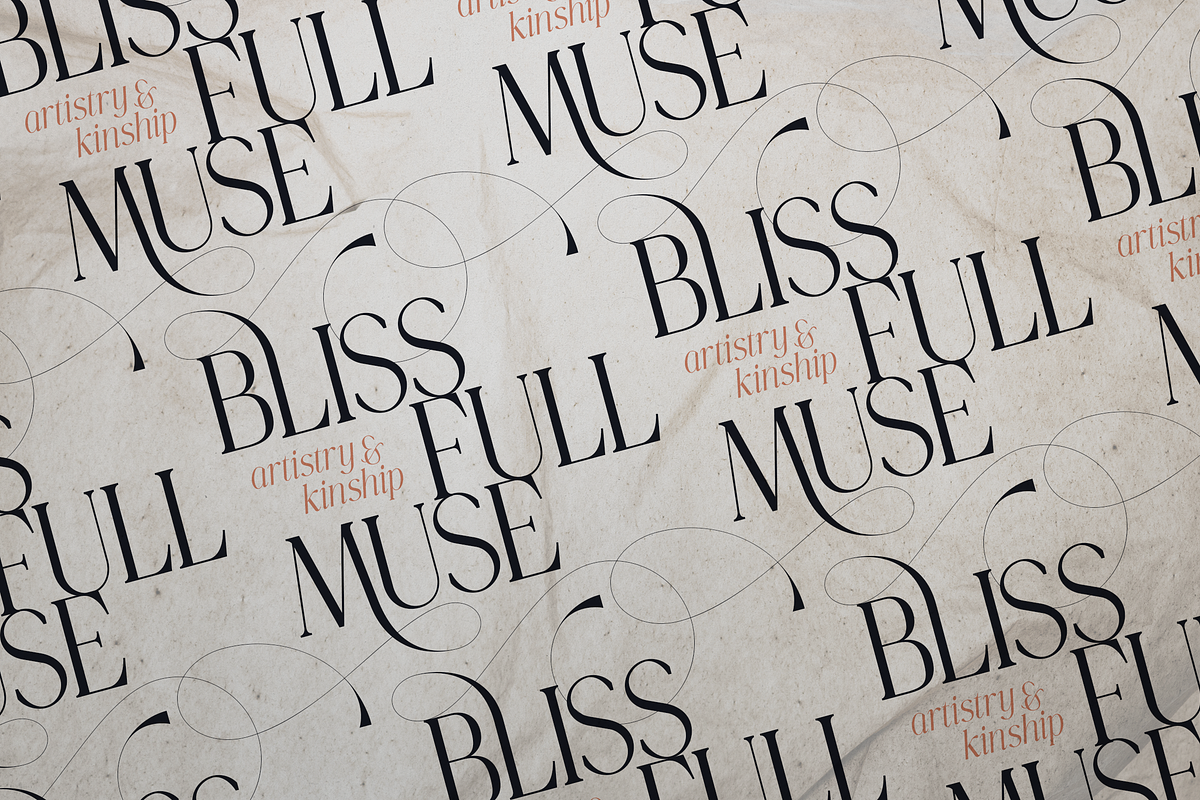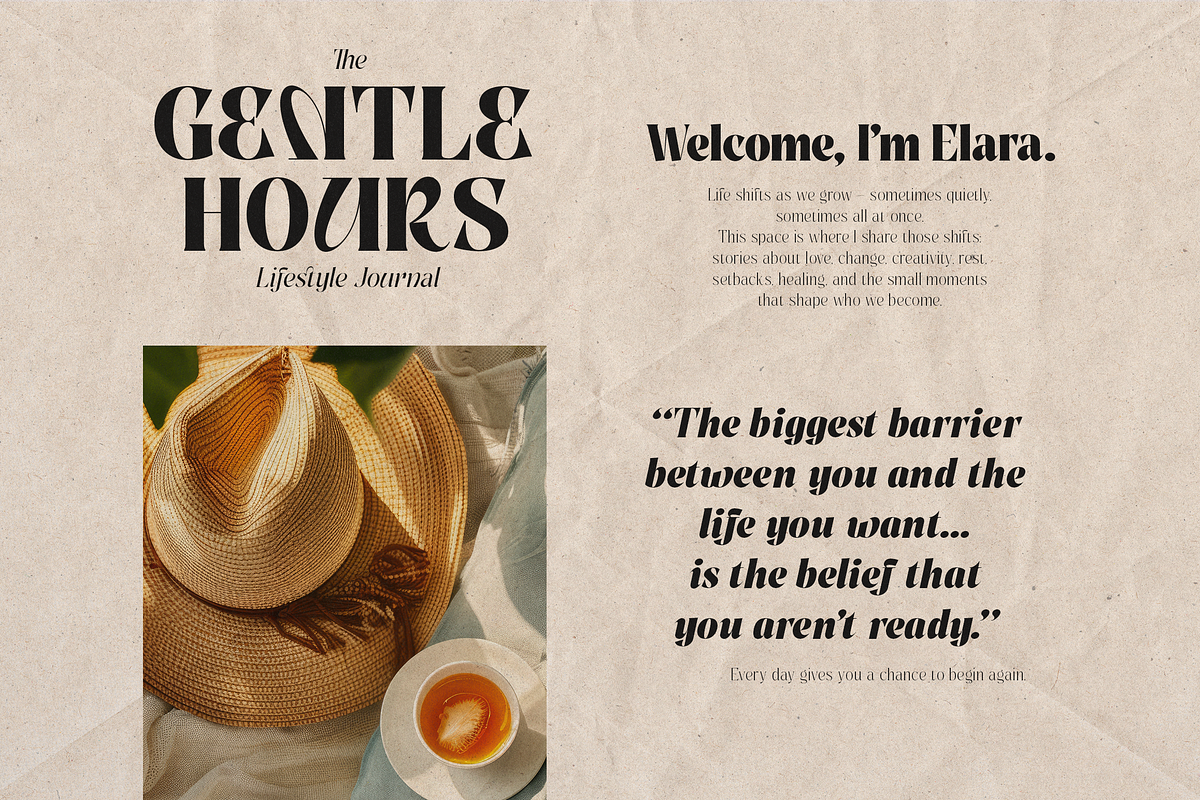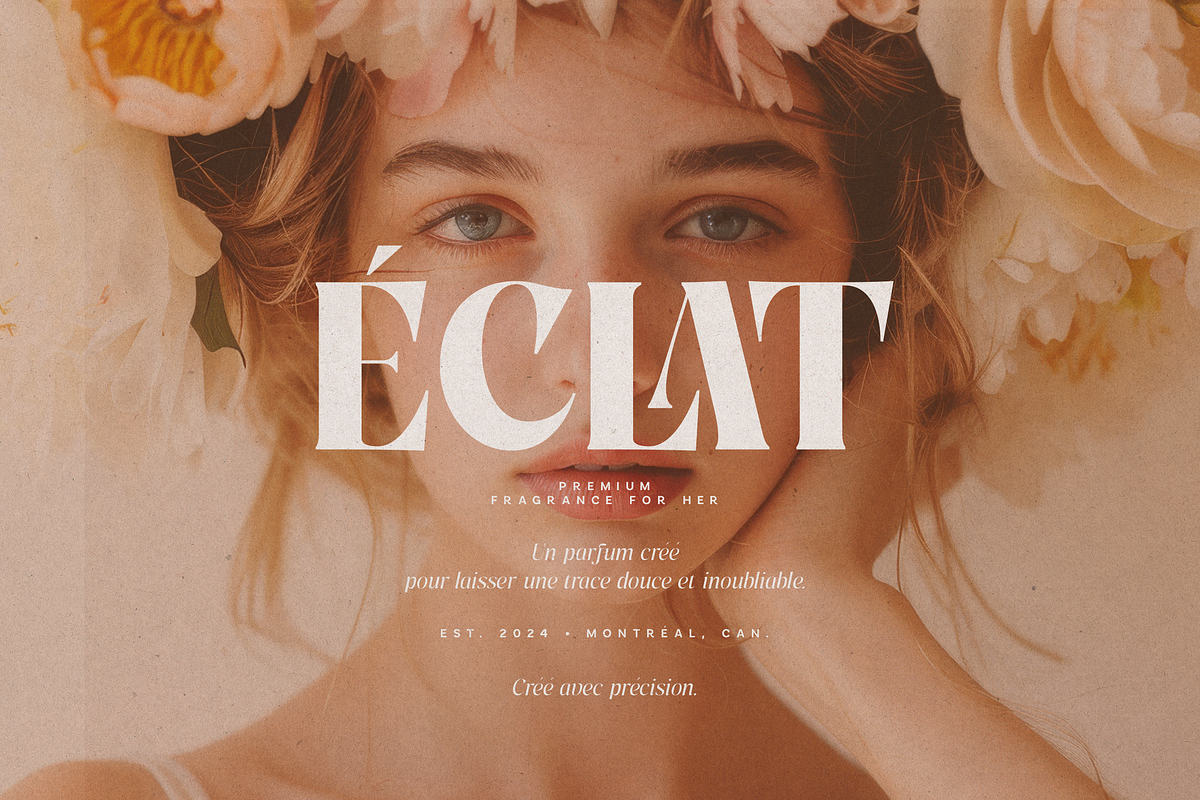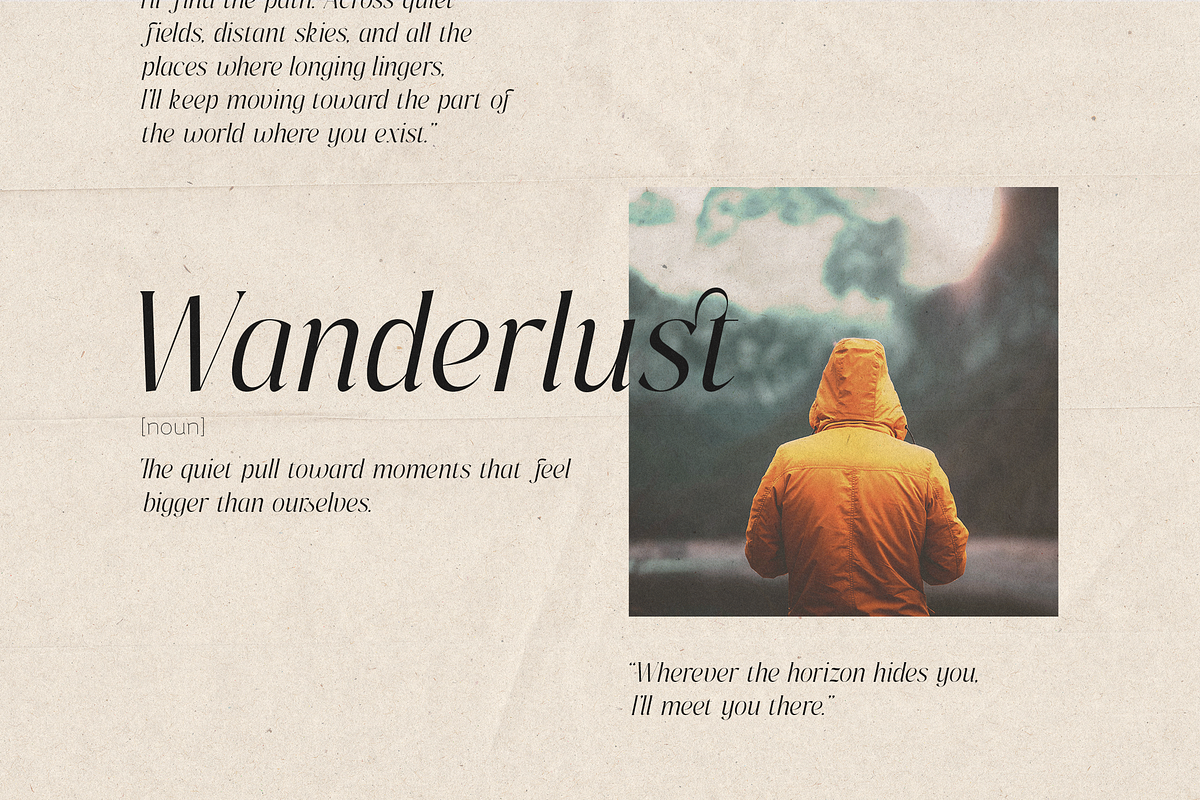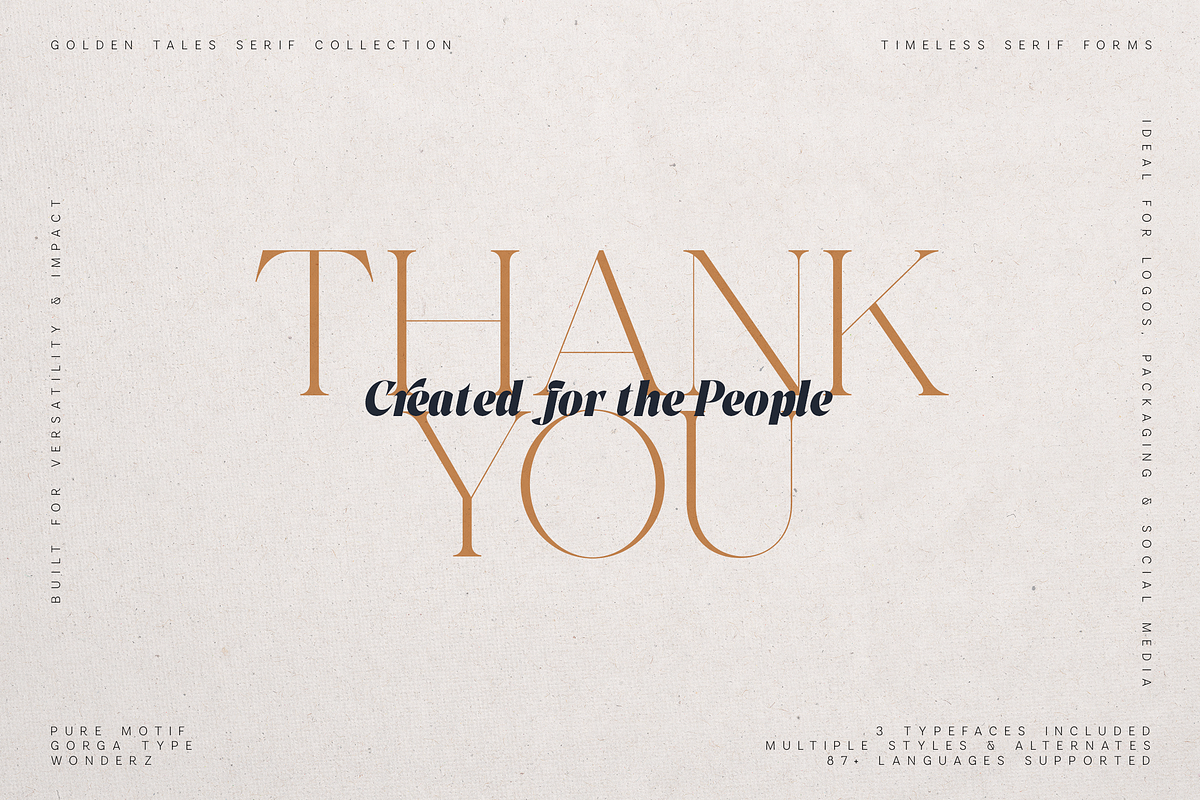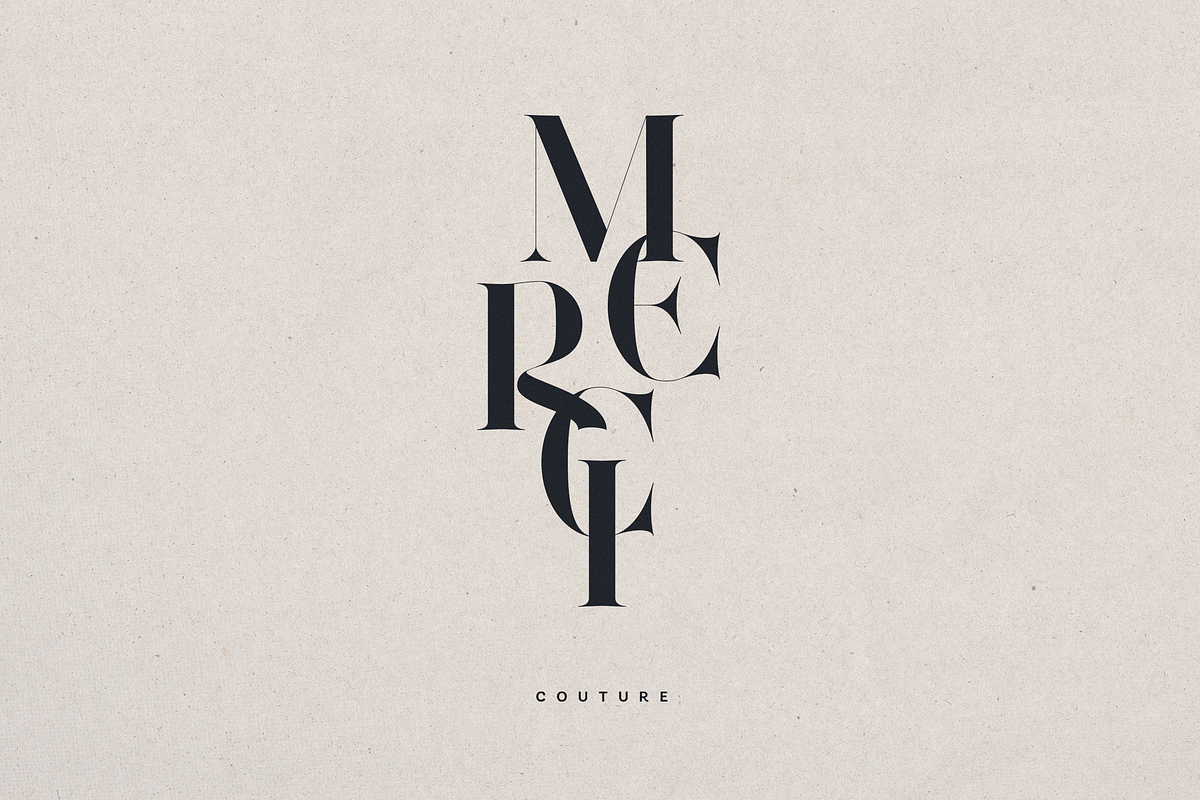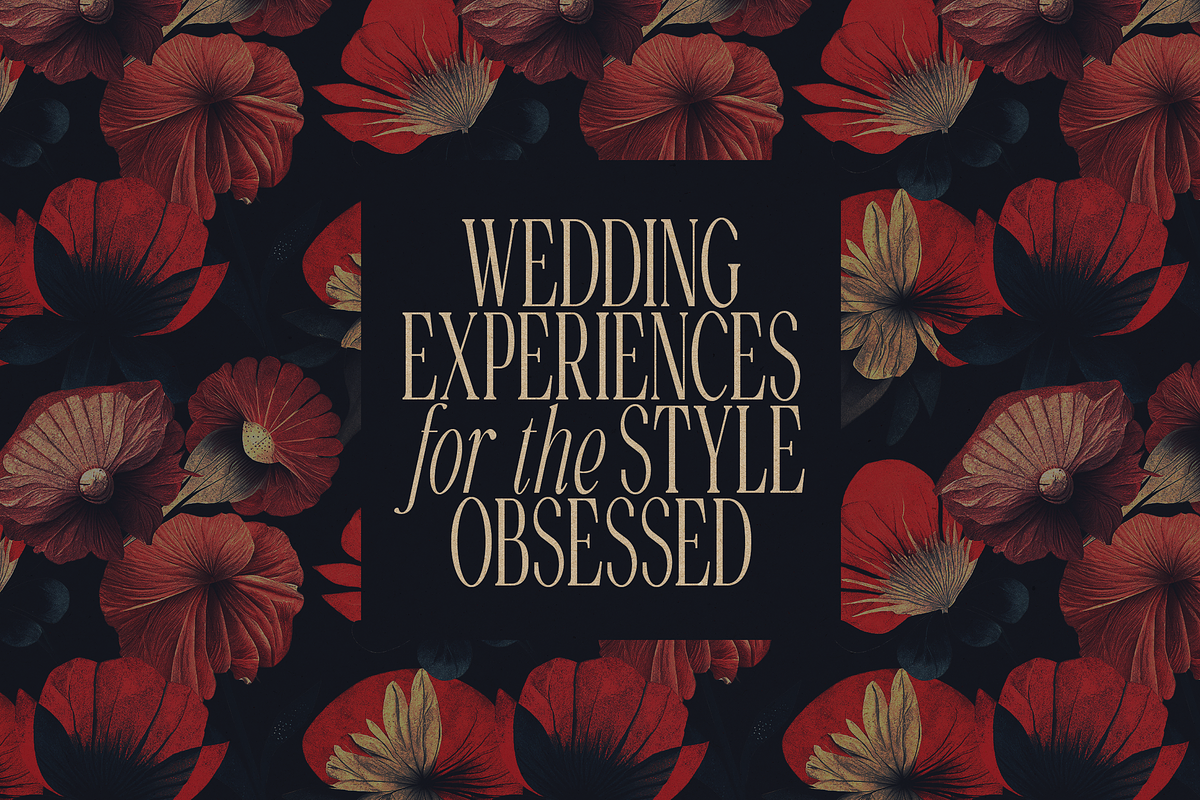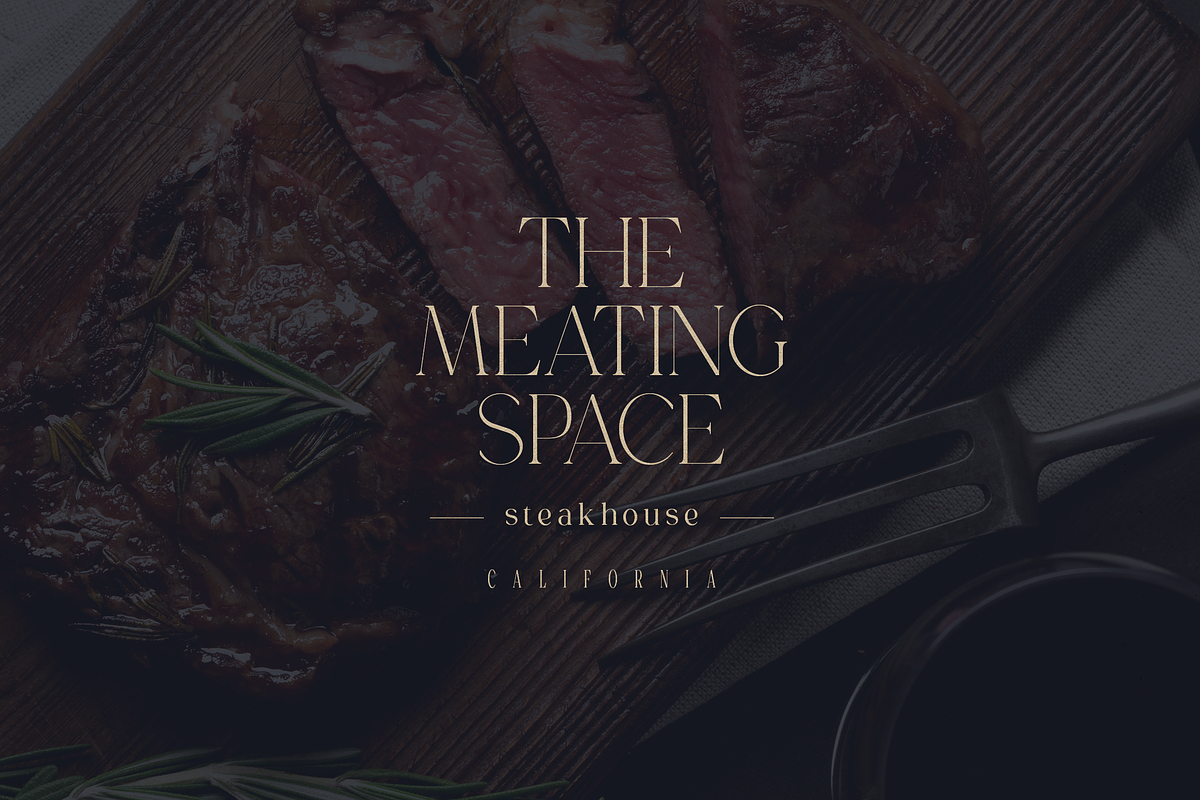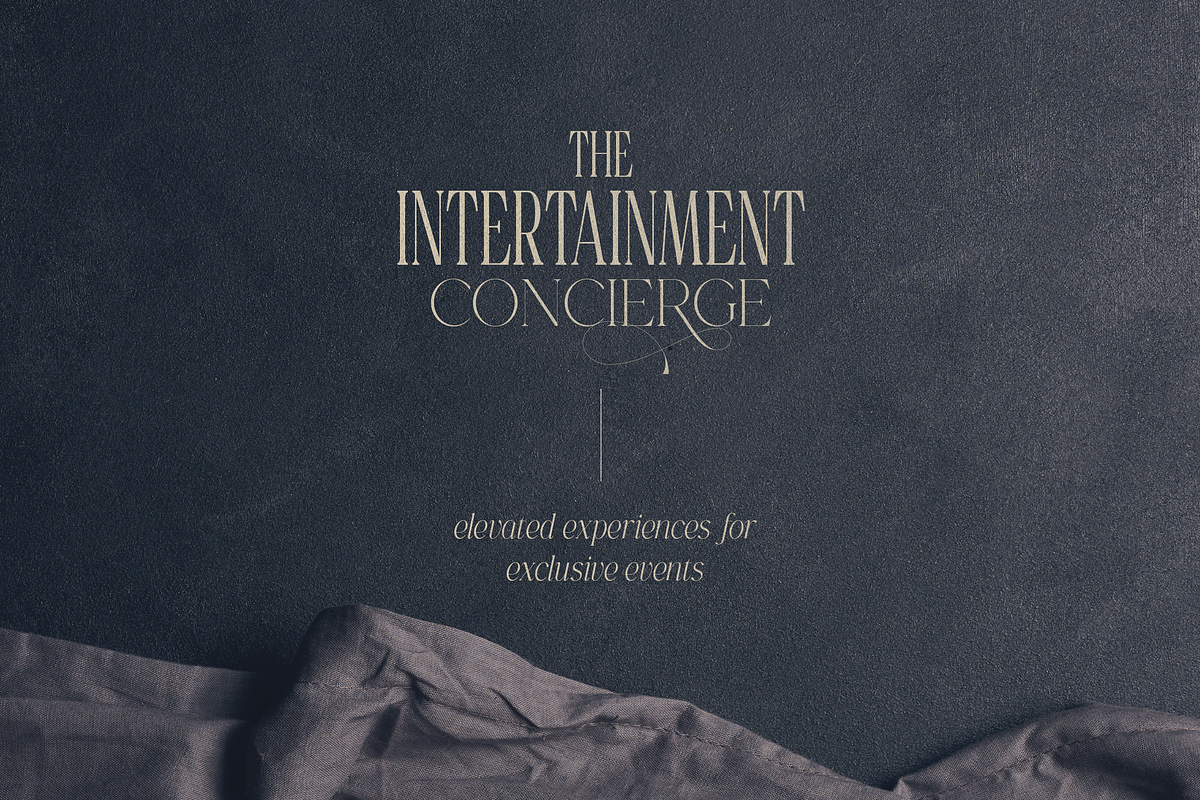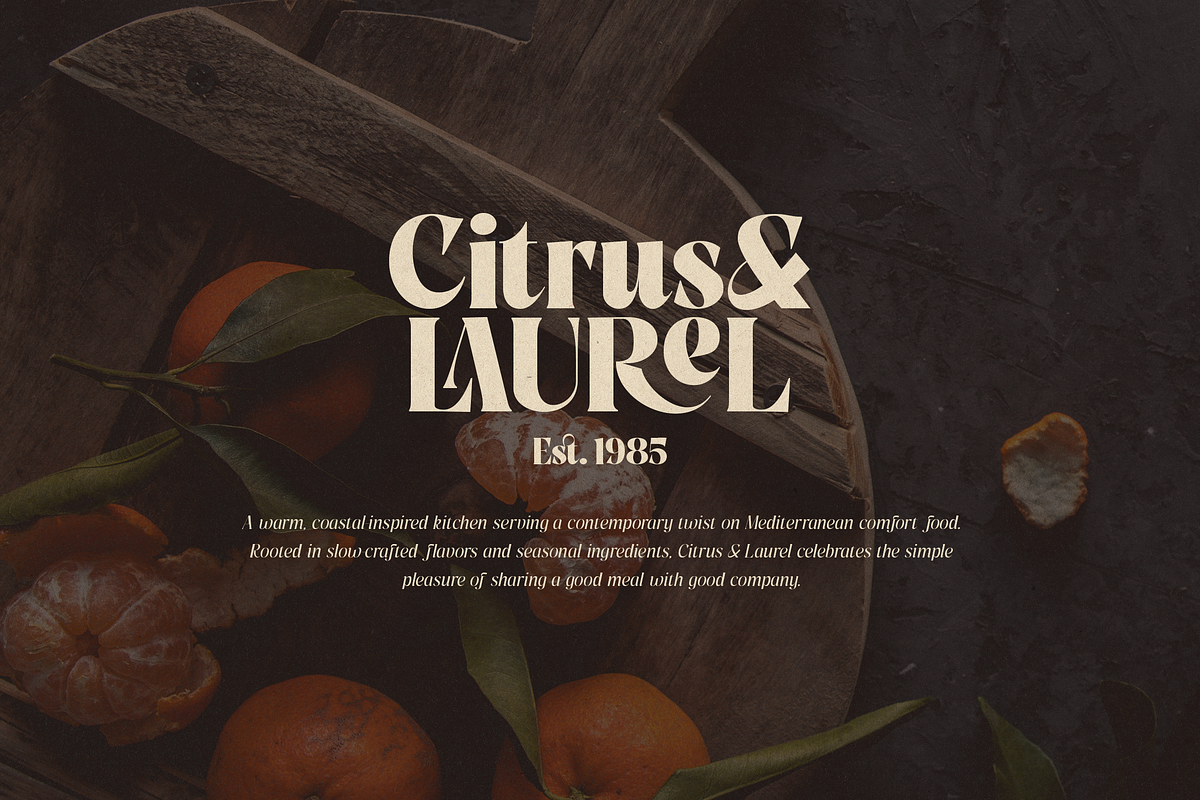
Golden Tales Serif Collection is a refined trio of serif typefaces - Gorga Type, Wonderz, and Pure Motif - crafted to bring elegance, character, and storytelling into modern design.
This collection blends timeless serif forms with contemporary aesthetics, offering a versatile toolkit for designers who want to create sophisticated and expressive visuals. Each typeface has its own unique voice while working harmoniously together, making it easy to build cohesive and elevated designs.
From high-end editorial layouts to distinctive brand identities, Golden Tales delivers a perfect balance of contrast, softness, and refined details - featuring graceful curves, stylish alternates, and carefully designed ligatures.
- Gorga Type – modern, clean serif with strong presence
- Wonderz – expressive serif with personality and character
- Pure Motif – refined serif with elegant and minimal feel
- Multiple styles for each typeface
- Alternates & ligatures
Golden Tales is designed for versatility and visual impact. Whether you're creating bold identities or soft, editorial compositions, this collection gives you full creative freedom while maintaining a consistent and polished look.
Its combination of three distinct yet complementary typefaces makes it a powerful asset for any designer looking to elevate their typography.